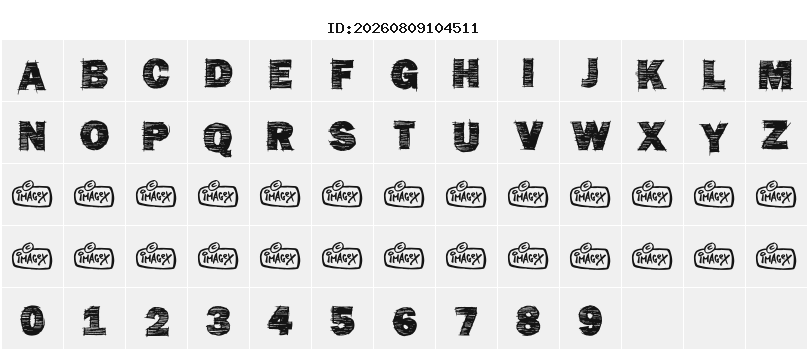
• Font Name: Penstriped
• Designer: Imagex
About Penstriped.ttf
Penstriped.ttf is a modern, elegant sans-serif font designed for ultimate readability and visual harmony. Perfect for branding, headlines, web design, and print materials.